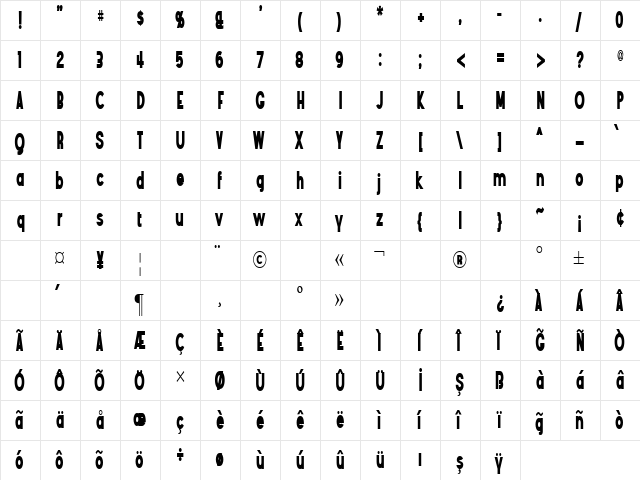
TR Angostura Black Regular
Design Context for TR Angostura Black Typeface
TR Angostura Black offers clean, dependable letterforms without strong stylistic allegiance, making it a practical choice for designers who need flexibility.
Pro Tip: Use TR Angostura Black in both headline and body roles to test its range before committing to a single application.